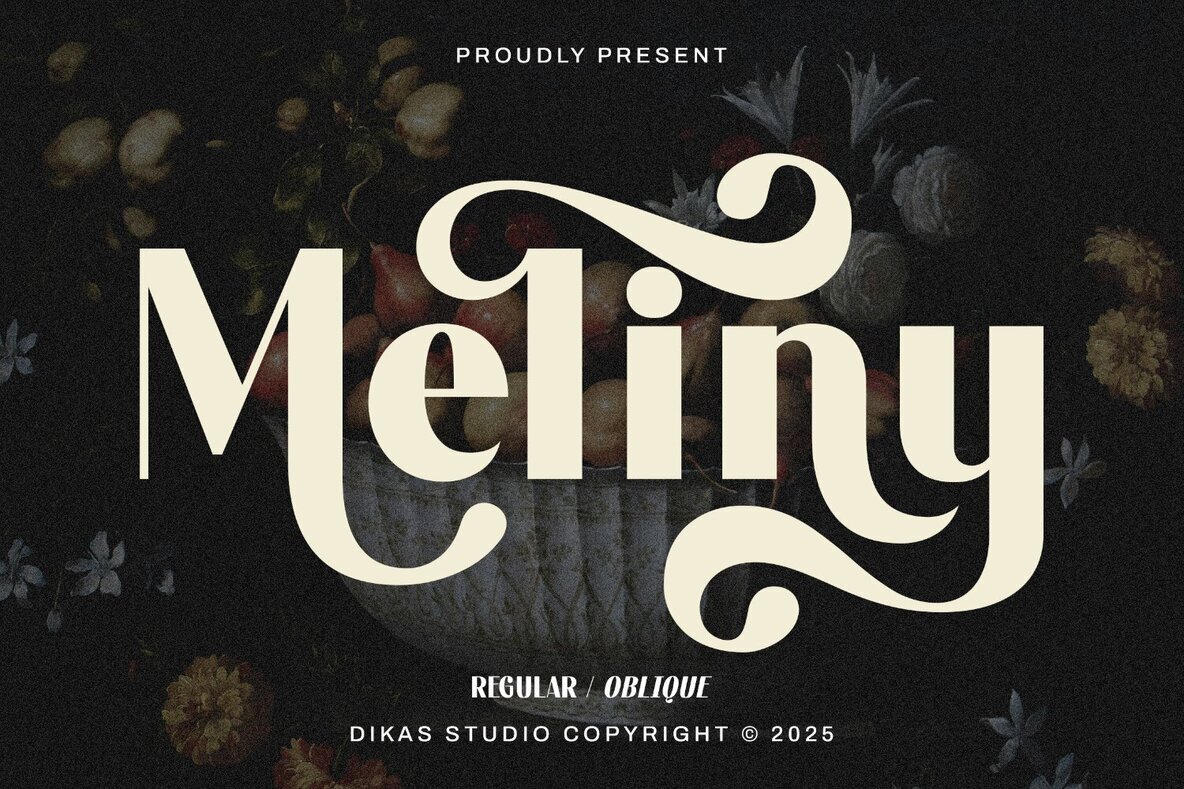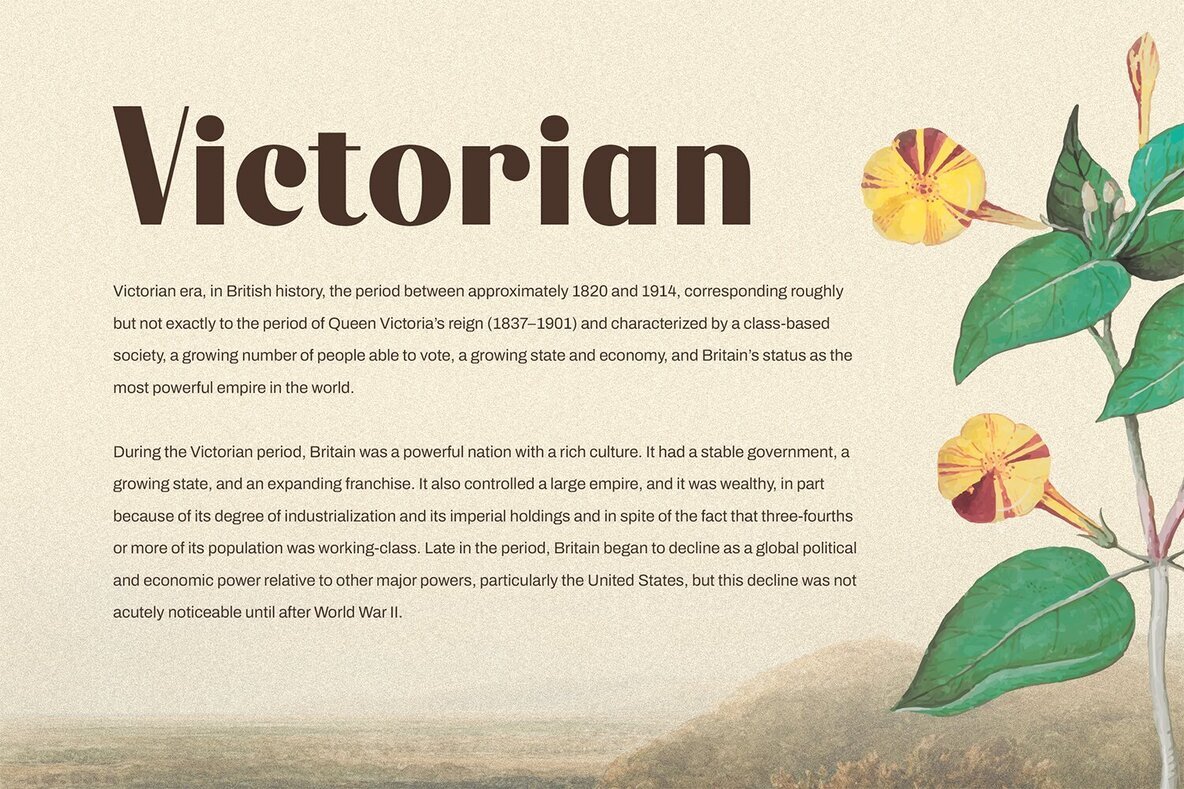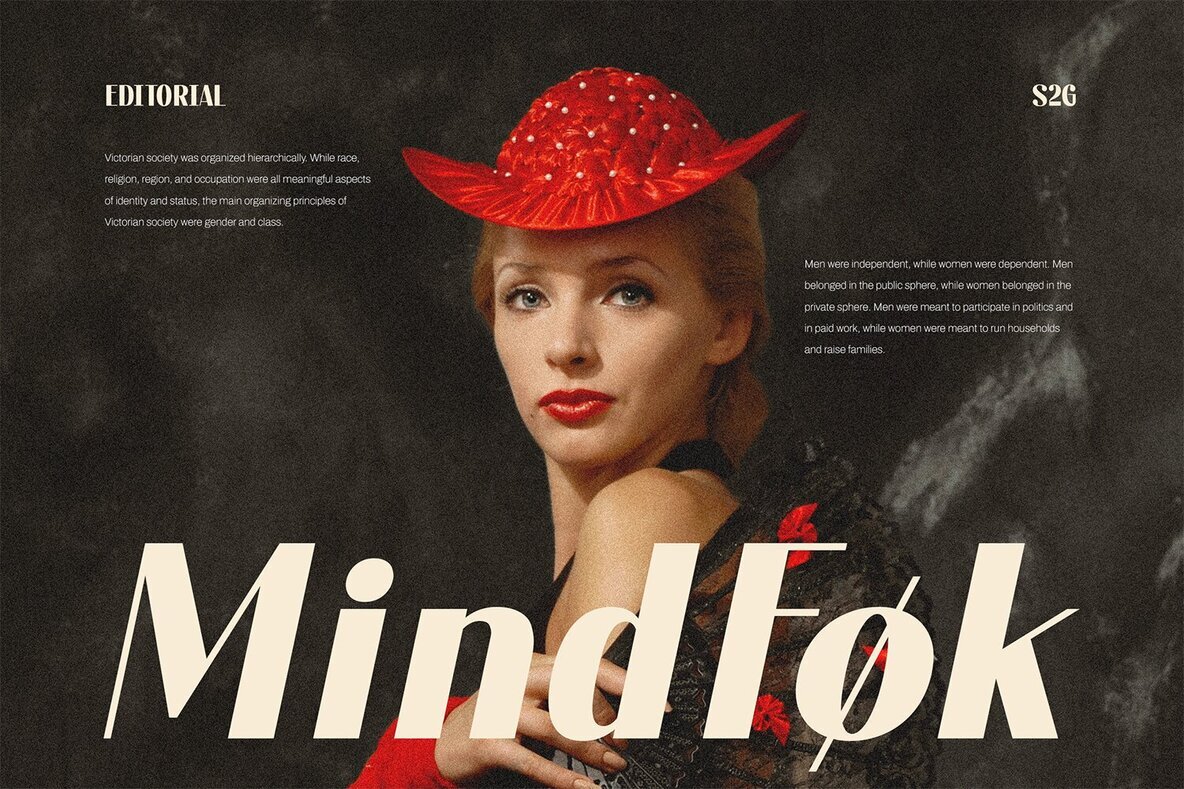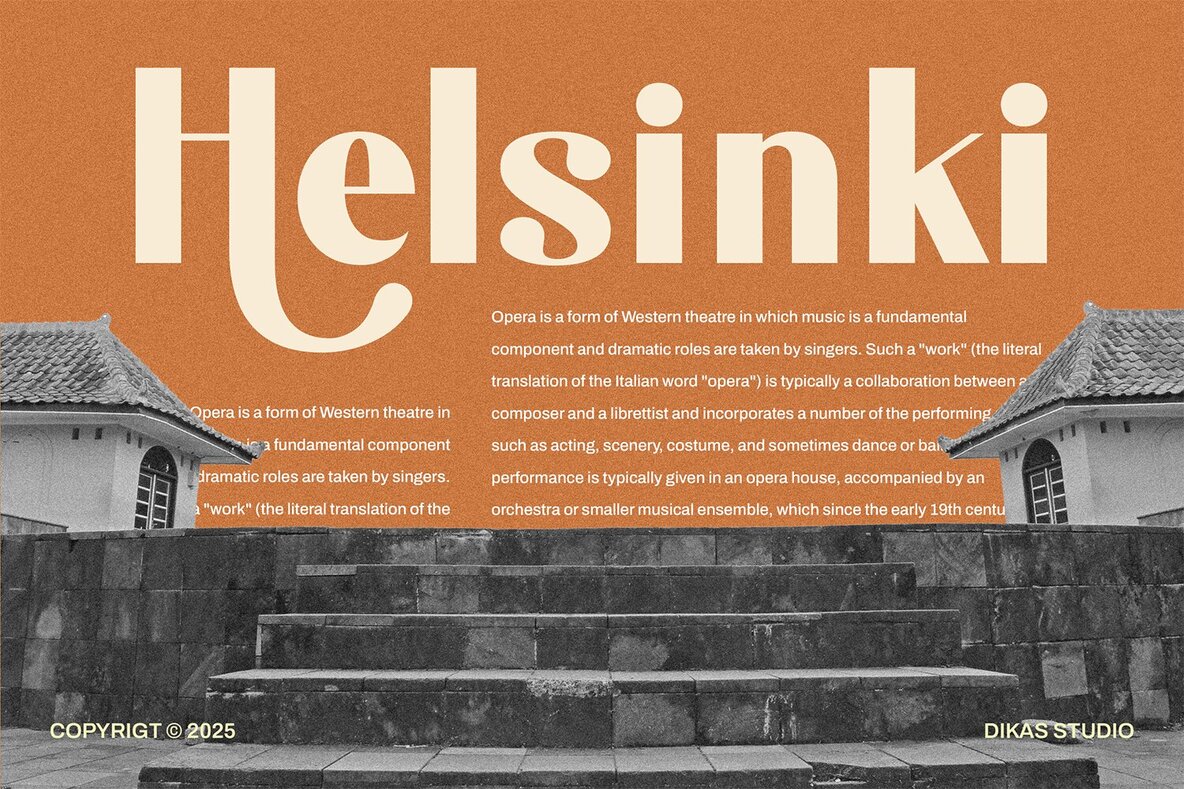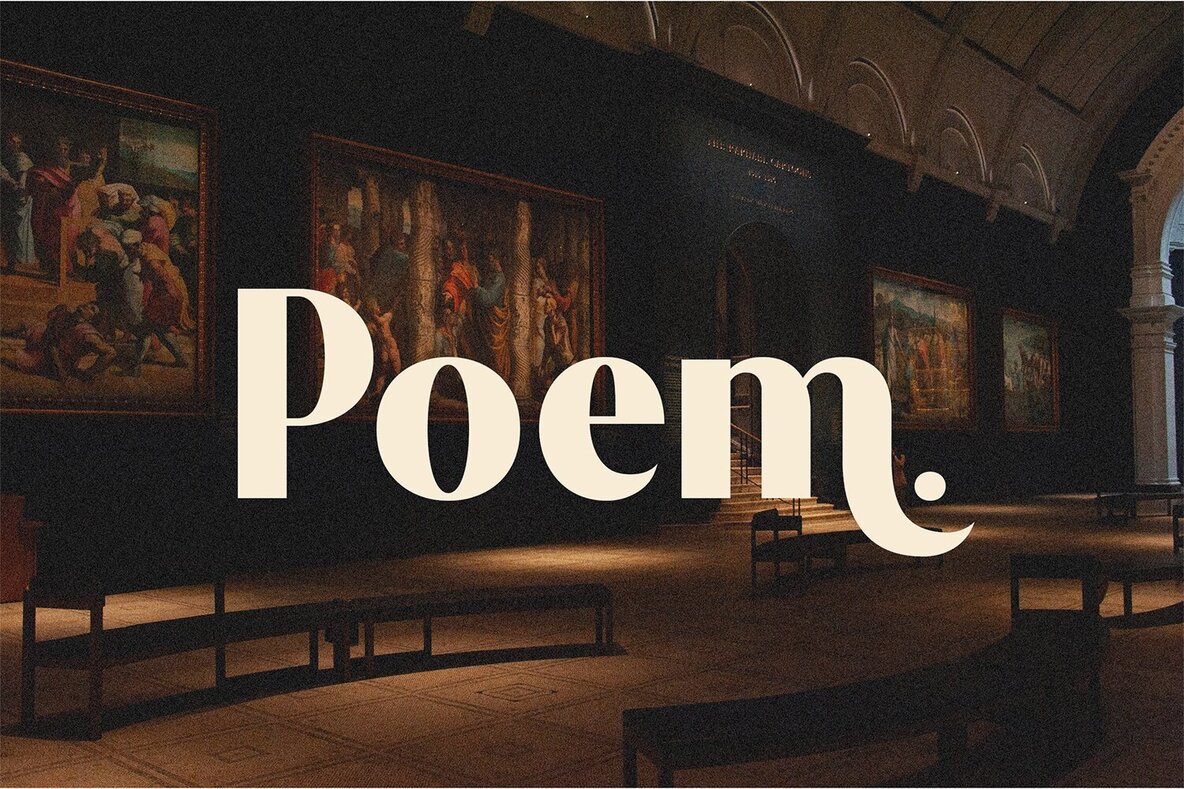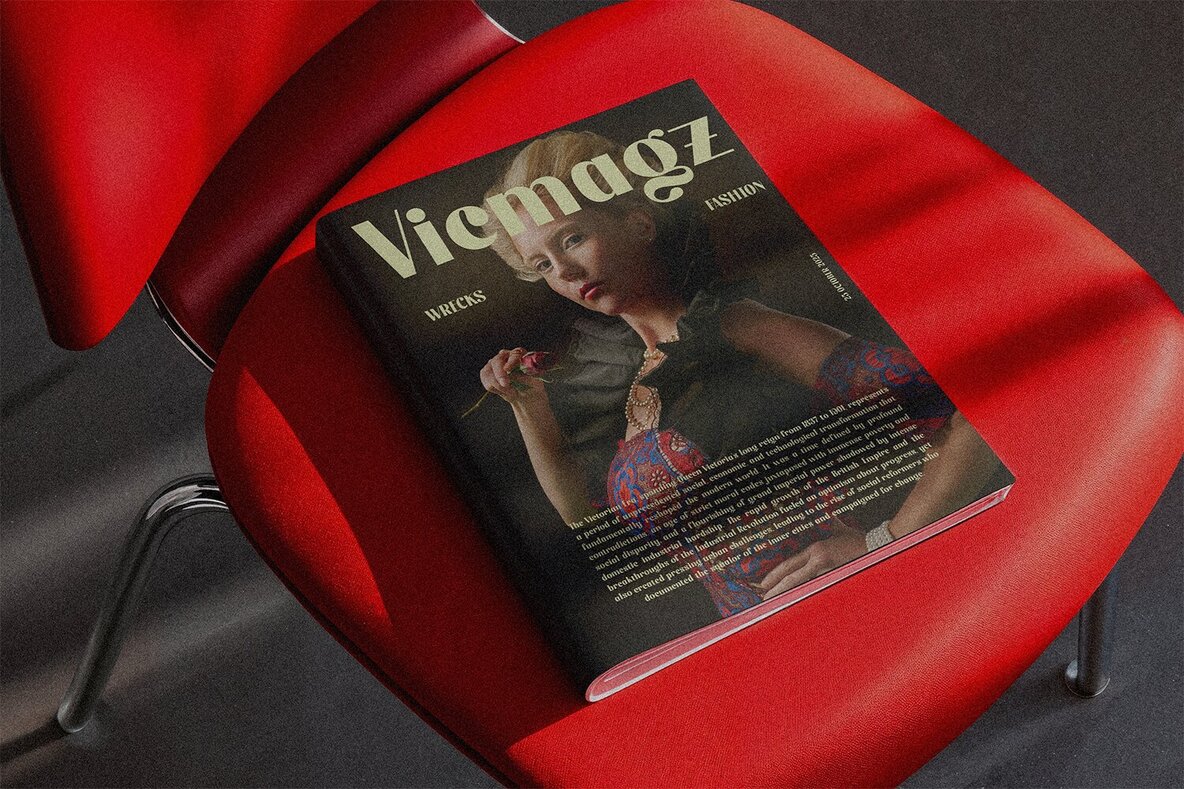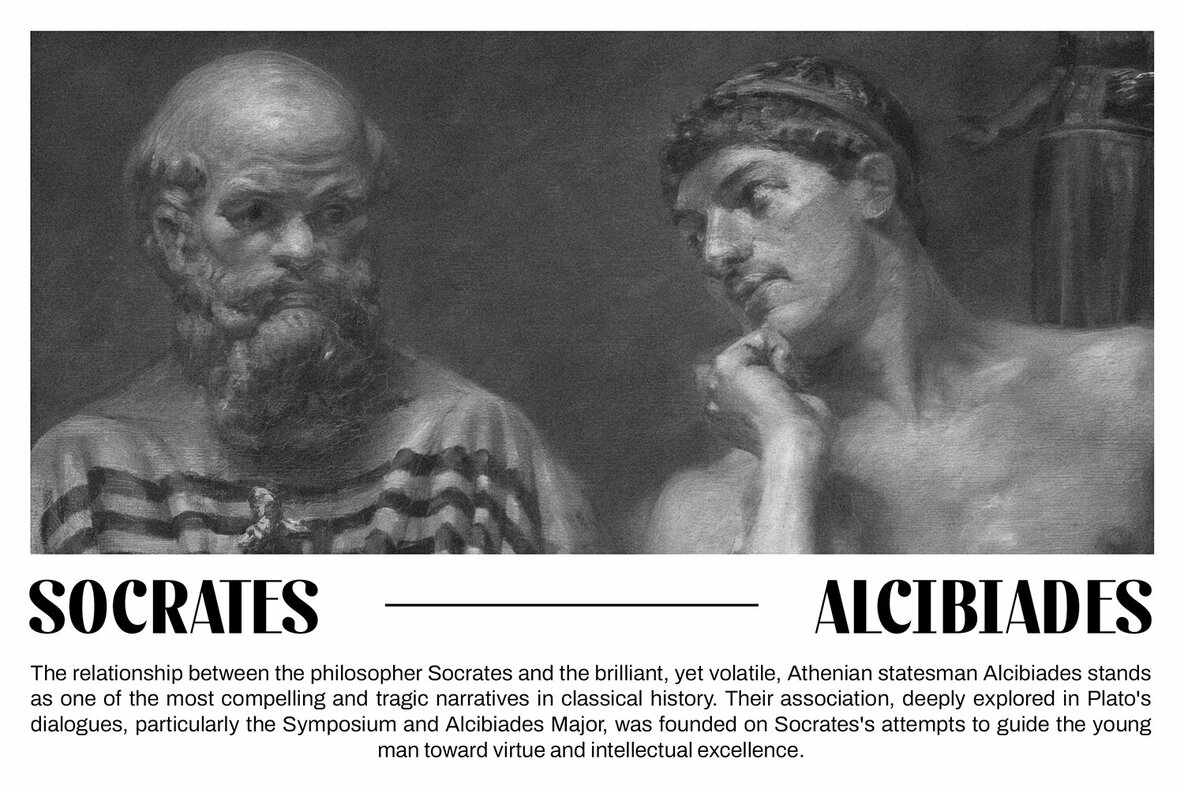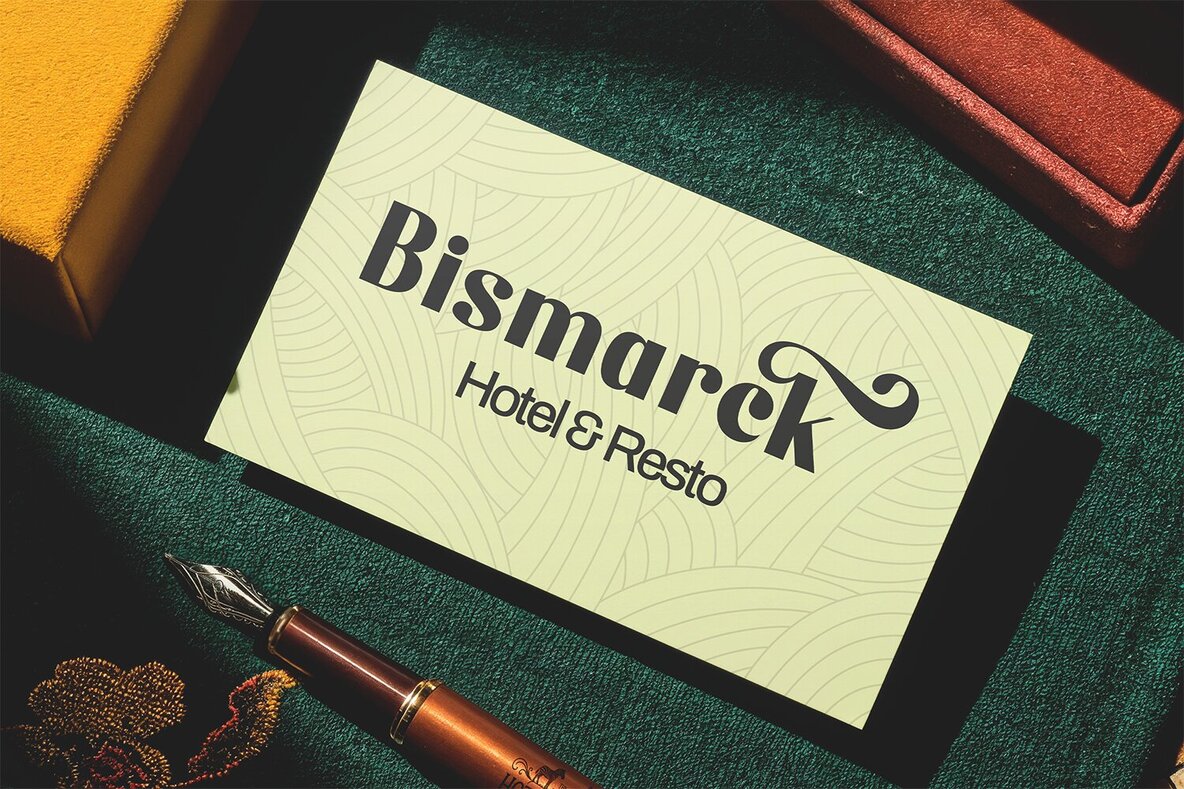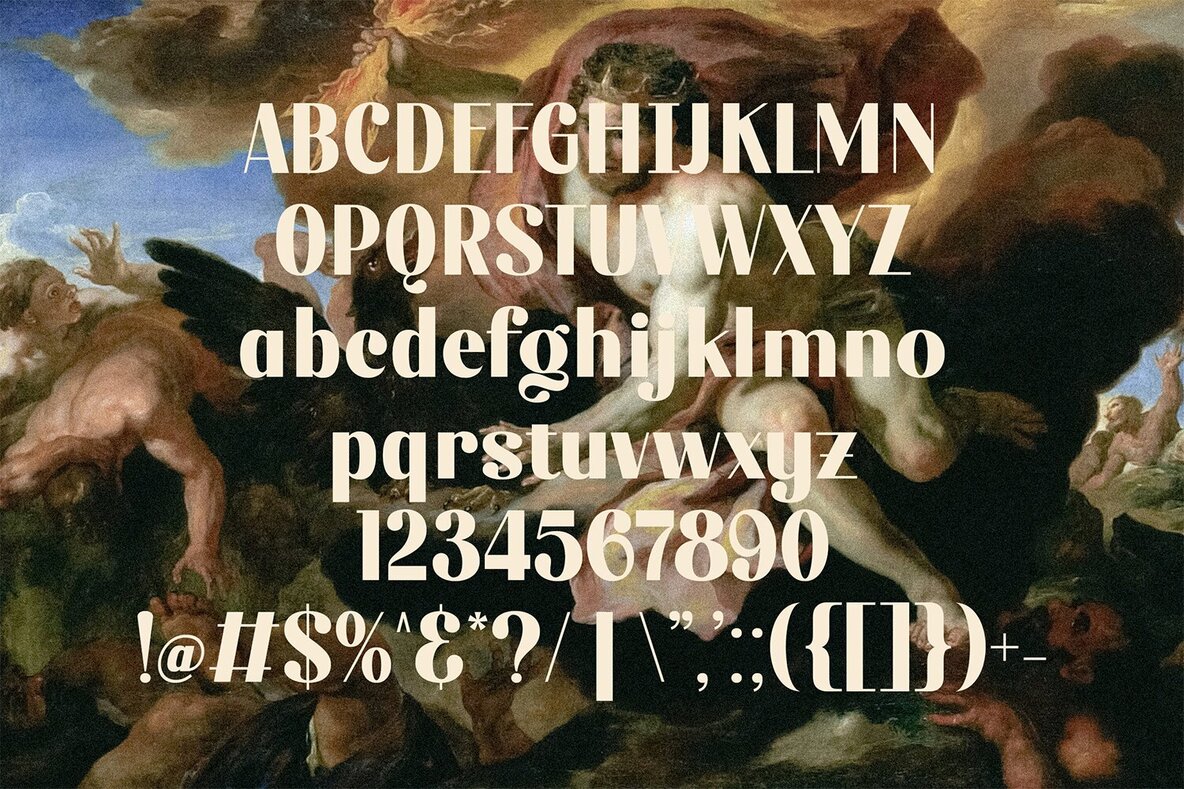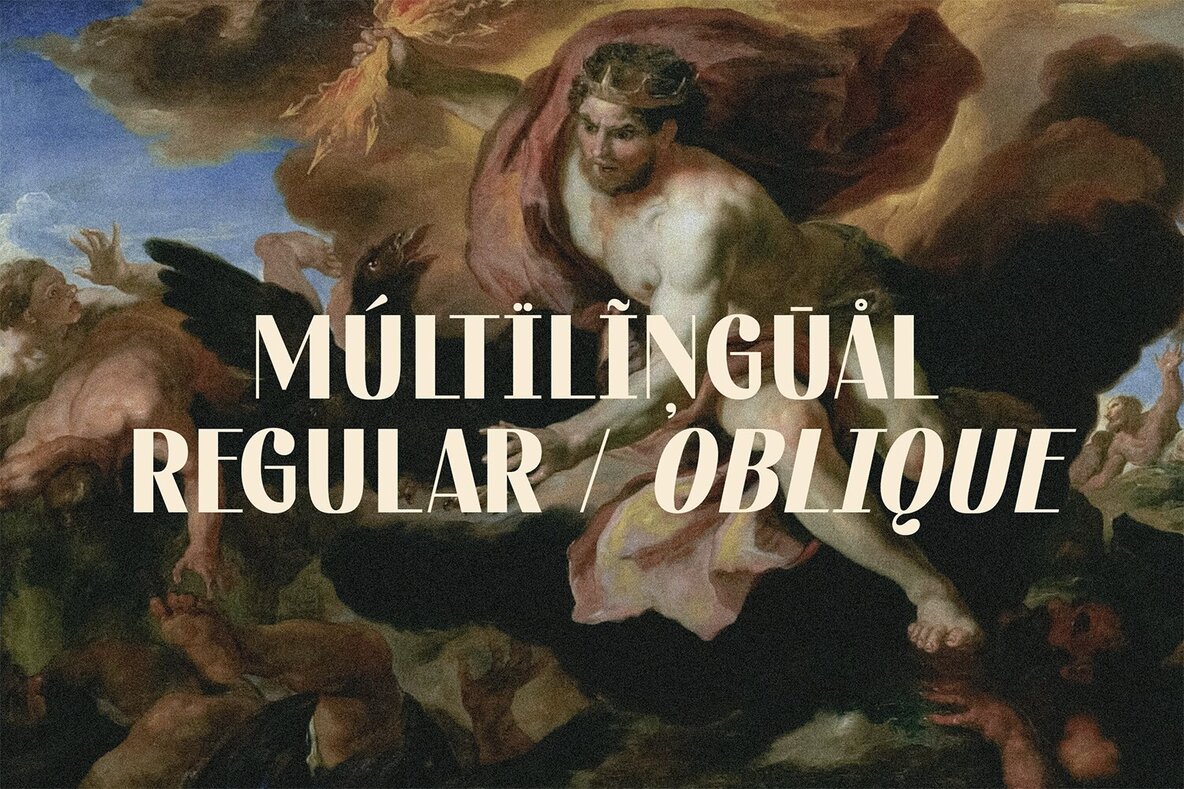
Meliny Font
Meliny is a bold vintage sans serif font designed for those who appreciate both strength and subtle elegance. Its striking contrast and graceful letterforms create an enduring charm, while smooth alternates and flowing curves bring a handcrafted touch to your projects. This typeface is ideal for designers seeking a blend of sophistication and vintage character. The versatility of Meliny makes it well-suited for fashion branding, wedding invitations, crafts, and refined logos. Available in both Regular and Oblique styles, Meliny offers flexible options for any creative direction.Meliny: A Vintage Sans Serif Font with Timeless Appeal